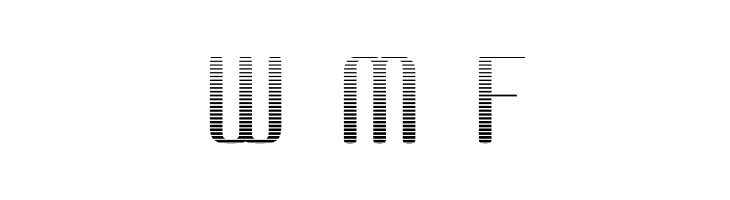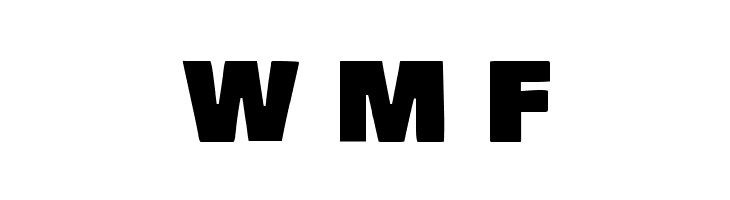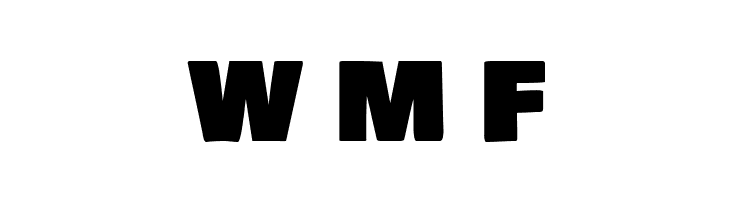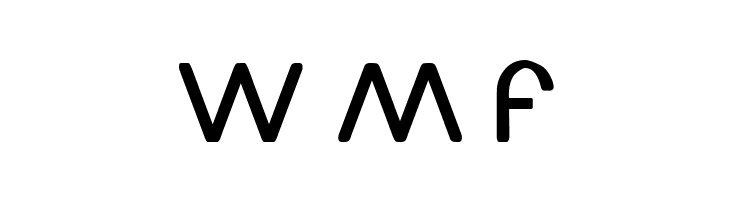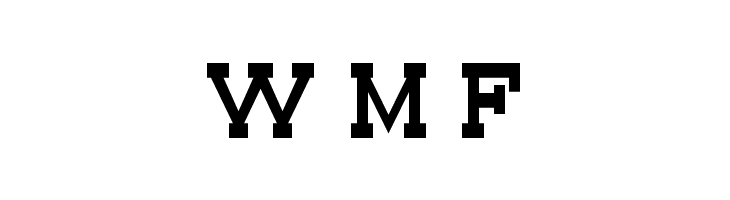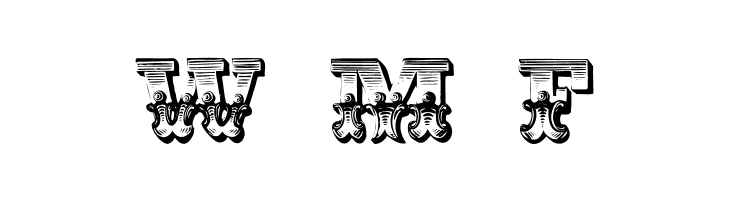
A modern, geometric font with bold, structured characters and consistent stroke widths.
A bold, blocky font with strong, impactful characters.
A decorative font with organic, vine-like embellishments.
An ornate and decorative font with intricate swirls and flourishes.
A modern, rounded font with uniform stroke width and high legibility.
Bold slab serif font with a Western, vintage style.
An ornate and decorative font with bold, framed characters.
A bold, impactful font with thick strokes and a modern style.
A bold, impactful typeface with thick strokes and strong presence.
A bold, heavy font with a strong, geometric style ideal for impactful headlines.
A bold, geometric font with rounded edges and a strong presence.
A bold, impactful font with thick, rounded strokes for strong visual statements.
A geometric, modern font with a boxy, technical appearance.
A playful and whimsical font with bold, rounded letterforms and a quirky aesthetic.
A playful, bold font with quirky, rounded characters and a cartoon-like style.
A bold, playful font with a distinctive shadow effect and whimsical style.
A playful, bold font with a shadow effect and whimsical, cartoonish style.
A playful, bold font with rounded characters and a whimsical style.
An ornate, Victorian-style decorative font with intricate details.
A playful, retro font with bold, rounded letters and a hand-drawn feel.
A bold, gothic-inspired font with sharp, angular edges and high contrast.
A bold, jagged font with a hand-crafted, edgy appearance.
A bold, artistic font with irregular, hand-crafted characters.
A bold, flowing script font with a playful and dynamic handwritten style.
A playful and elegant script font with flowing, cursive letterforms.
A modern, rounded font with uniform stroke width and geometric structure.
A modern, playful font with rounded edges and elongated forms.
A modern, striped font with a bold, uniform appearance.